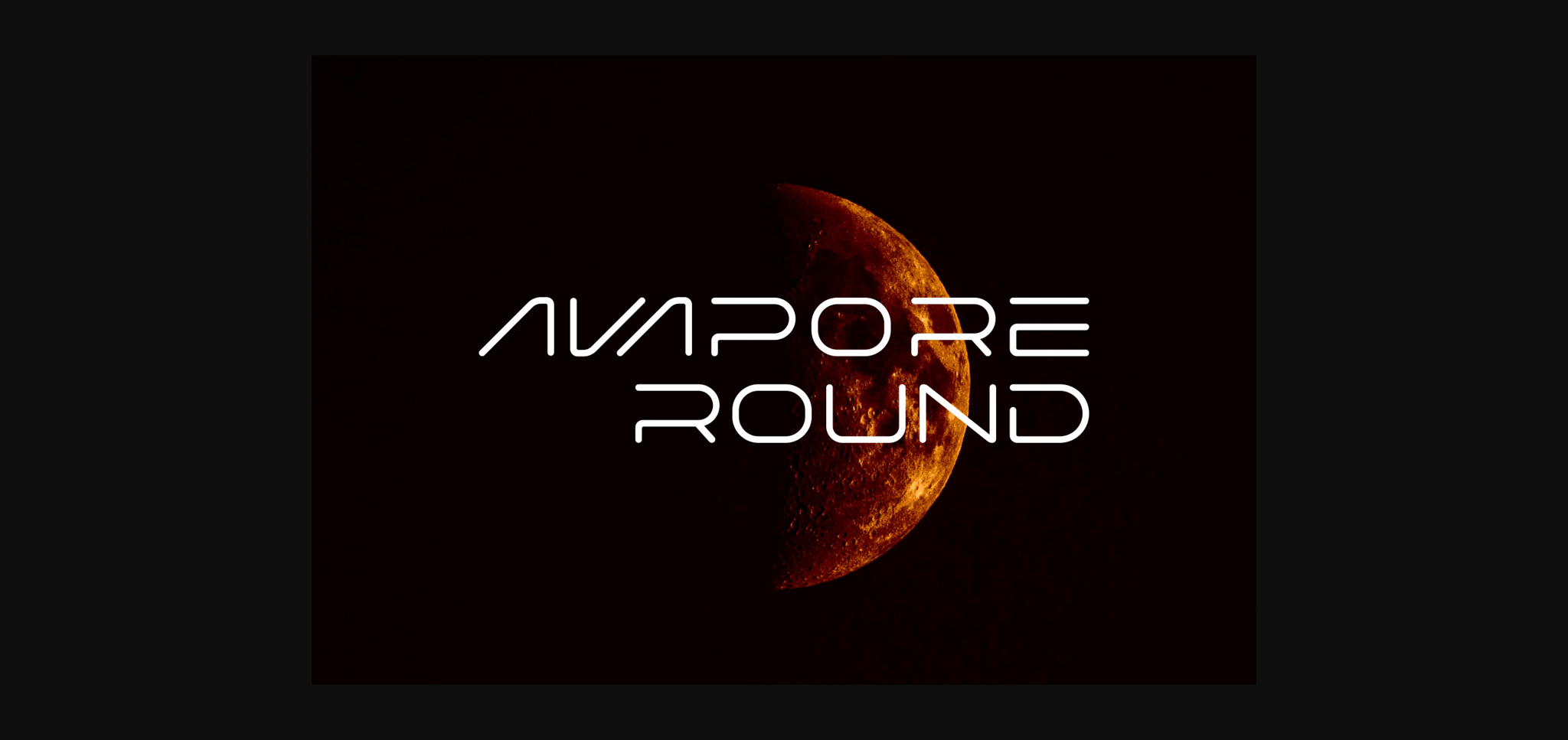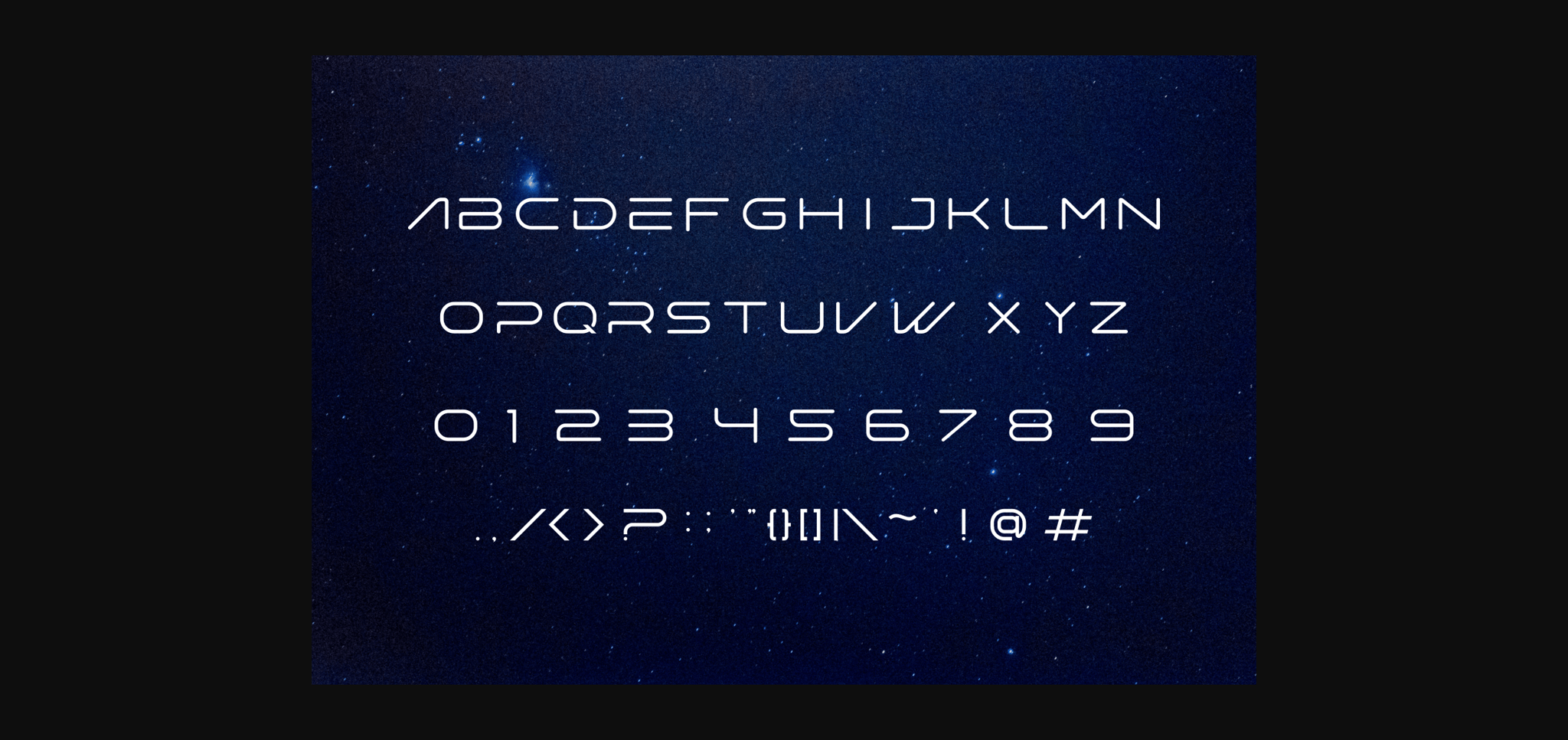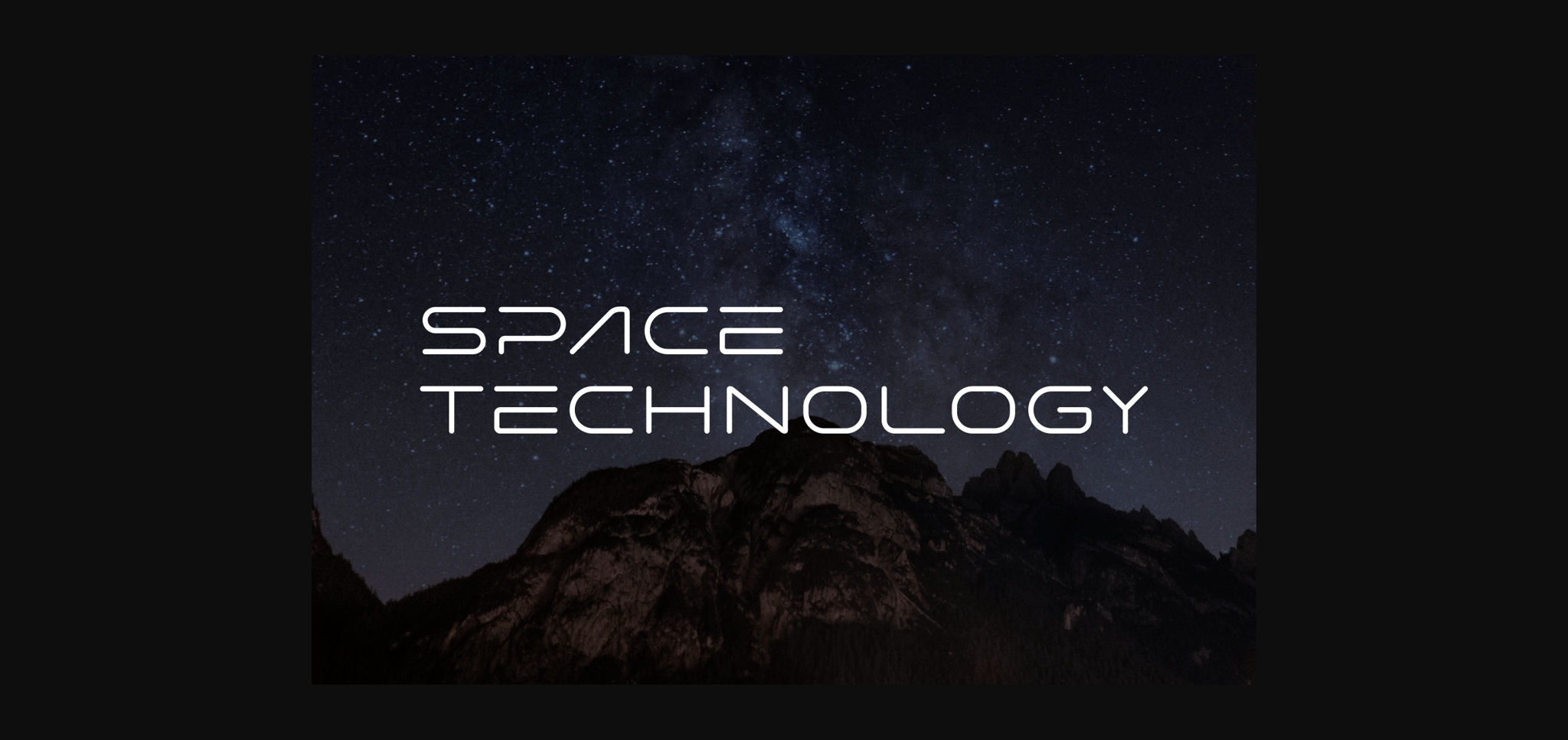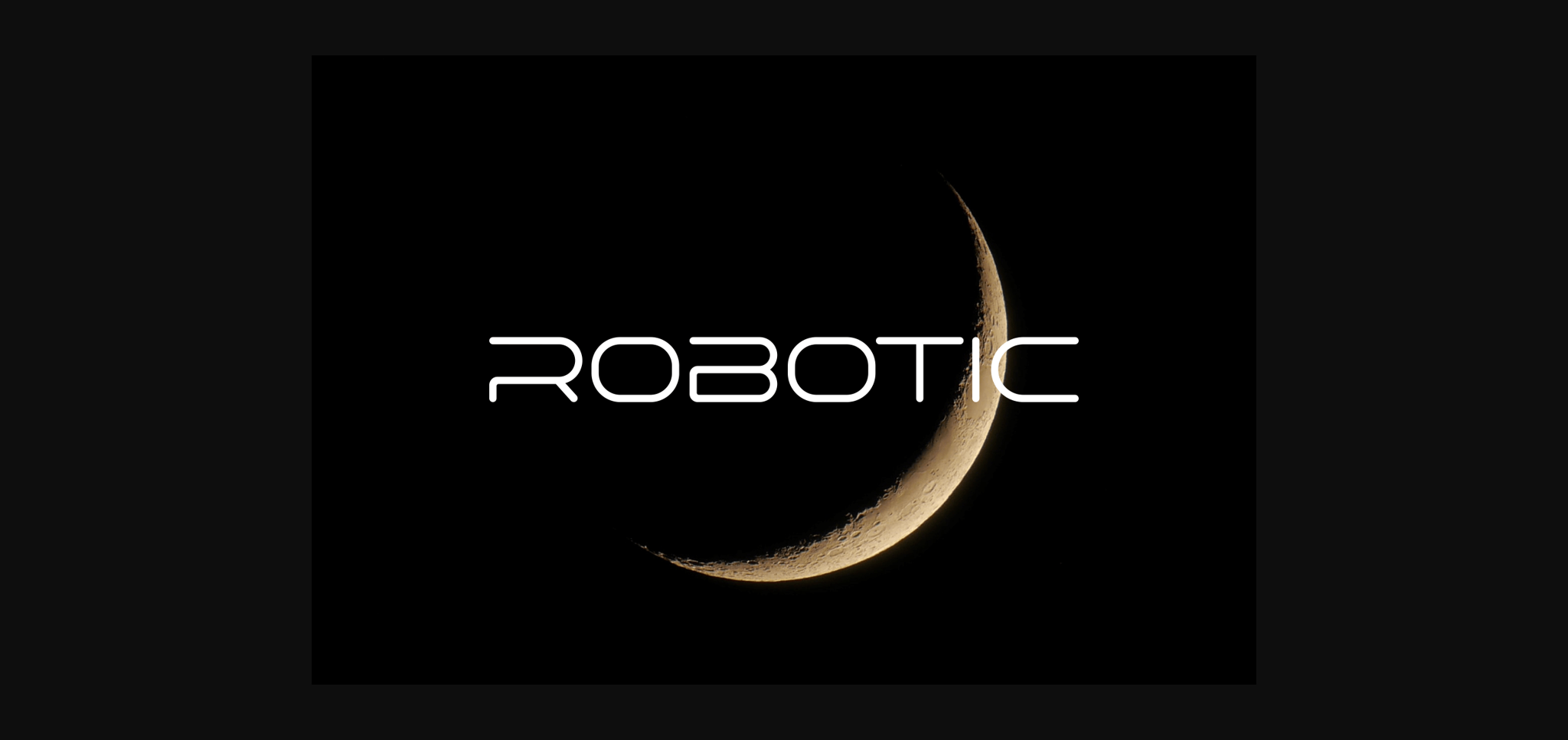
HomeSans Serif FontsAvapore Round Font Sans Serif Fonts Avapore Round Font FacebookXPinterestWhatsApp 1 of 6 ... Avapore Round Font Poster 2... Avapore Round Font Poster 3... Avapore Round Font Poster 4... Avapore Round Font Poster 5... Avapore Round Font Poster 6... About Avapore Round Font Avapore Round is a cool and stylish sans serif font. Masterfully designed to become a true favorite, this font has the potential to bring each of your creative ideas to the highest level! DOWNLOAD NOW People also explored Space in Mars Font Algisttalleya Font Beach House Vulgat Realest | A Modern Slab Serif Font World Hell Font Otella Font Kenzie Hijri Font 372 0 TagsAvapore Round Font Previous articleBagros FontNext articleAsytaru Font LEAVE A REPLY Cancel reply Comment: Please enter your comment! Name:* Please enter your name here Email:* You have entered an incorrect email address! Please enter your email address here Website: Save my name, email, and website in this browser for the next time I comment. Personal Use Free Adelaide Personal Use Free Read more about this font Jurnal Personal Use Free Read more about this font Sefiya Personal Use Free Read more about this font Cherry Ai Personal Use Free Read more about this font BLOG Free vs Paid Fonts: Why Investing in Premium Fonts Is Worth It Free vs Paid Fonts: Why Premium Fonts Are Worth It in 2025 The debate of free vs paid fonts continues in the design world. While... Top 7 Google Fonts Alternatives for Faster and Privacy-Friendly Web Design (2025) Top 10 Handwritten Fonts That Elevate Your Designs Where to Buy American Fonts Online in 2024